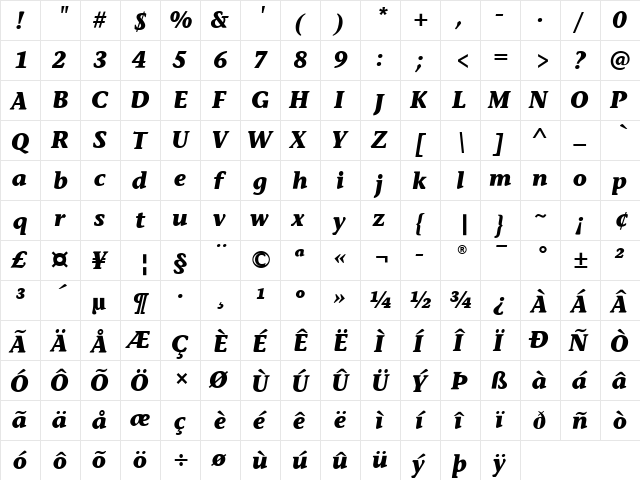
StoneInfITC Bold Italic
| Foundry | International Typeface Corporation |
Design Context for StoneInfITC Typeface
StoneInfITC is a composed and adaptable typeface that performs quietly and consistently across a wide range of design contexts. Its italic angle brings a sense of urgency and motion to the letterforms. The heavy weight commands attention and anchors typographic hierarchies.